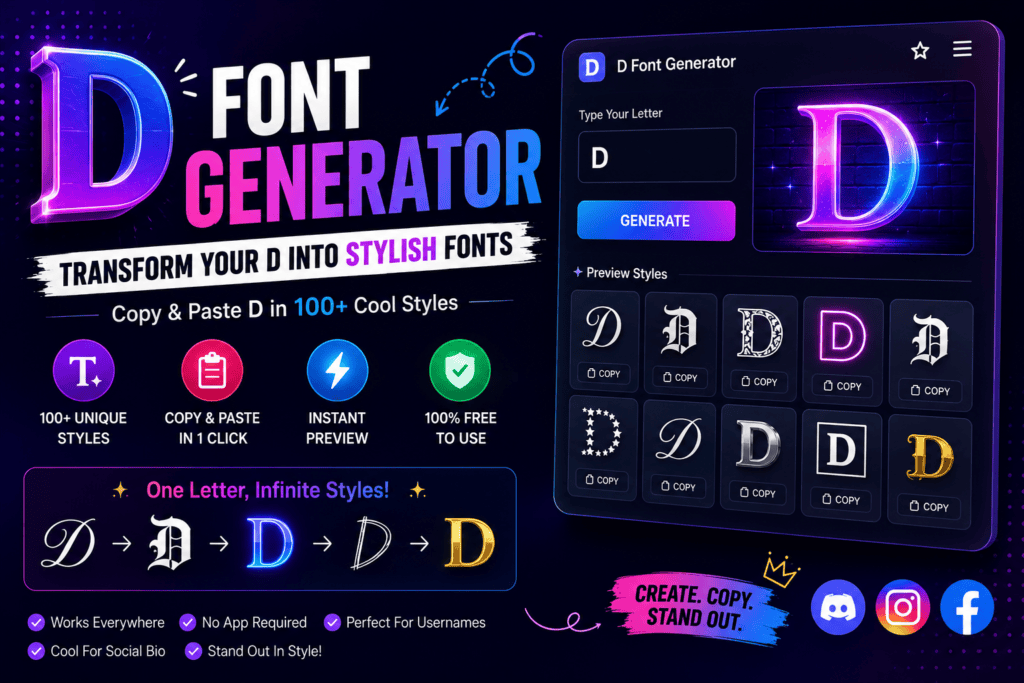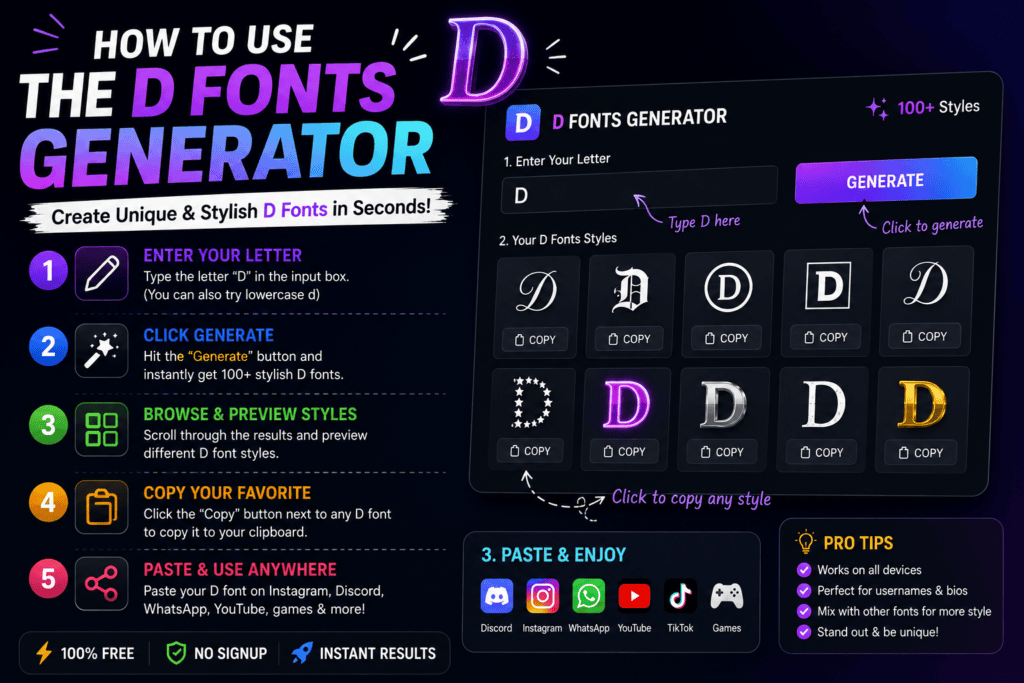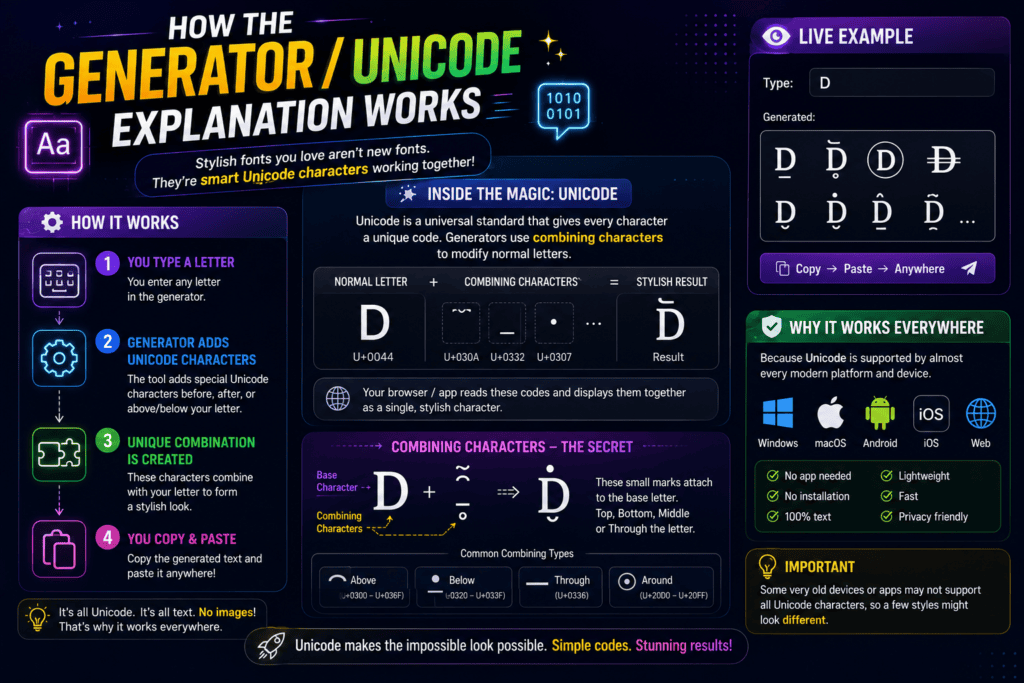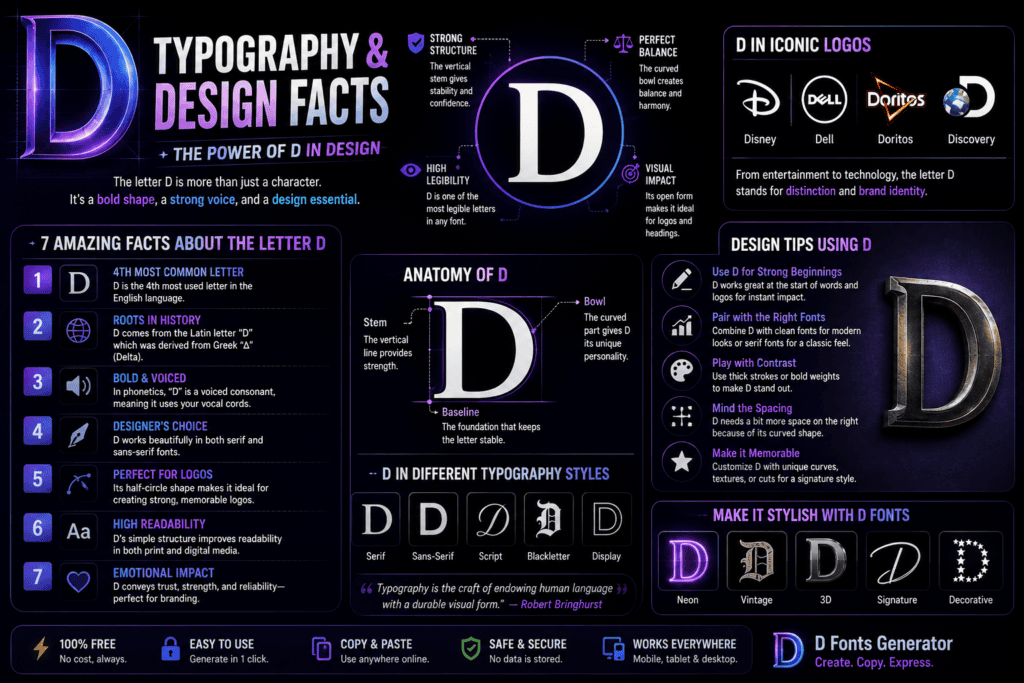
At first glance, a D font generator seems cosmetic, but the practical value is consistency: a text converter transforms ordinary D characters into unicode characters that appear across modern websites, apps, and most smart devices.
From my testing, the strongest results come from choosing style for context rather than decoration alone: cursive suits polished identities, gothic adds intensity, bold improves visibility, while monospace gives technical profiles a cleaner, deliberate presence.
How The Generator / Unicode Explanation Works
Behind every fancy text generator, a normal keyboard letter is mapped to unicode symbols, producing stylish versions without installing fonts. In my testing, live preview makes each style easier to verify before click to copy.
What looks like a cool font is actually custom text built from unicode characters. After users copy paste the result, the design can travel into social media, gaming profiles, or business spaces with compatible rendering.
Gothic & Blackletter D
In my typography practice, blackletter D works when old english, mathematical fraktur capital d, and gothic symbols inform edgy gothic style lettering; the result feels daring, visually dominant, easily recognizable, and suited to streetwear branding.
For branding, gothic D delivers power, intimidation, and authority across gaming profiles, music, creative industries, and edgy brands, but I avoid it in corporate, traditional, law, finance, or medicine where readability and professional use matter.
Cursive & Script D
Cursive and script D styles work best when calligraphy feels purposeful rather than overload. In my experience, their cursive sophistication gives names, digital signatures, and aesthetic bios a polished sense of elegance without sacrificing readability.
For softer identities, I favor flowing forms that suggest creative styling and refined beauty. They suit wedding posts or elegant femininity, while subtle elegance keeps each letter distinctive, personal, controlled, and visually graceful across profiles.
Bold & Heavy D
From practical typographic work, a bold D proves most effective when strong presence matters. Its strength, leadership, and confidence create immediate impact, while careful balance keeps the character legible instead of visually exhausting during scaling.
For heavier applications, I favor bold styling when a name requires dominance, commanding energy, or intensity. The added heft sharpens authority and edge, giving the D visual force without depending on ornamental complexity for recognition.
Bubble D
From my testing, bubble D adds friendly charm without feeling childish. These decorated variations give the letter D softer impact, pairing rounded fonts with an approachable shape that stays distinctive across short names and profiles.
I treat stylized versions as choices, not decoration: a casual username can benefit from bubble softness, while gaming personality may need bold D contrast. Keeping the look intentional preserves clarity and gives profiles recognizable character.
Monospace D
Monospace D works when consistency matters more than decoration. I prefer its fixed-width construction for coding-inspired handles, terminal-themed headers, and minimalist labels because every character occupies equal horizontal space, creating disciplined rhythm without ornamental distraction.
Rather than chasing complexity, Monospace D emphasizes geometry and spacing. In practice, it fits developer portfolios, coding communities, terminal interfaces, and software-focused identities, giving the letter a precise, mechanical presence that remains easy to scan.
Double-Struck D
The mathematical double-struck capital d gives profiles a disciplined visual identity, combining outline structure with distinct form. I often favor it when readable characters matter, because the style feels technical without becoming heavy or decorative.
Unlike bold styling, double struck forms create separation through internal geometry rather than weight. Their fancy alternative glyphs suit branding, usernames, or labels, while preserving a recognizable letterform under universal standard rules across digital contexts.
Small Caps D
Small caps D styling works best when compact styling matters more than spectacle, giving bios, captions, and display names a restrained identity. I use it to keep professional profiles readable, modern, visually and subtly sophisticated.
Unlike louder styles, a small caps D can strengthen brand personality through controlled emphasis. It suits business, creative projects, and social media where clean organization, subtle font styles, and standard characters matter across modern platforms.
Italic D
A slanted D feels most effective when its vertical stem and curved bowl lean with a balanced rhythm. In practice, I prefer this treatment for short texts, where refined styling adds movement without sacrificing recognition.
Will D Fonts Work On Discord?
Yes, styled D characters usually work on Discord because Unicode displays directly in usernames, nicknames, bios, and chat. In my testing, server owners, guild, and clan name styling works best when readability keeps weight balanced.